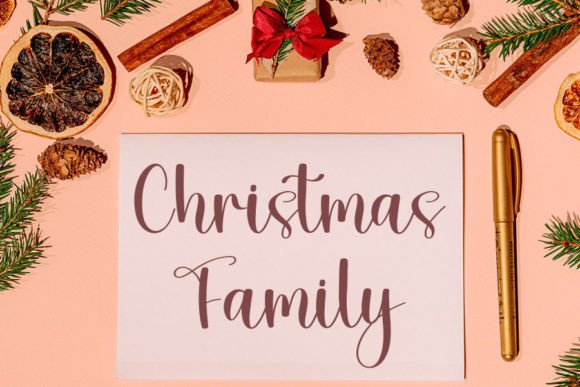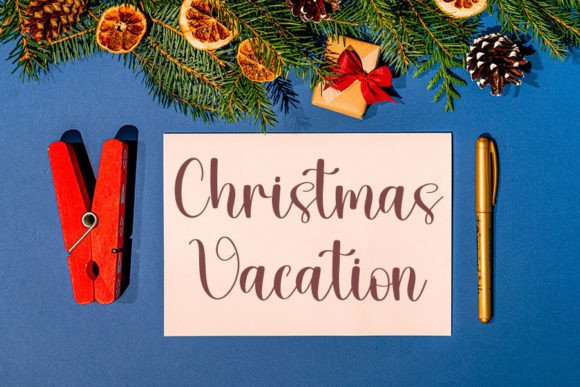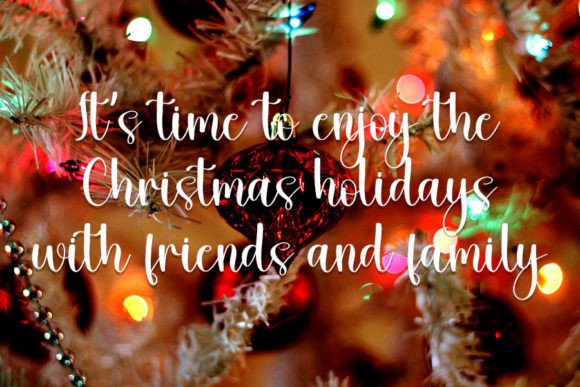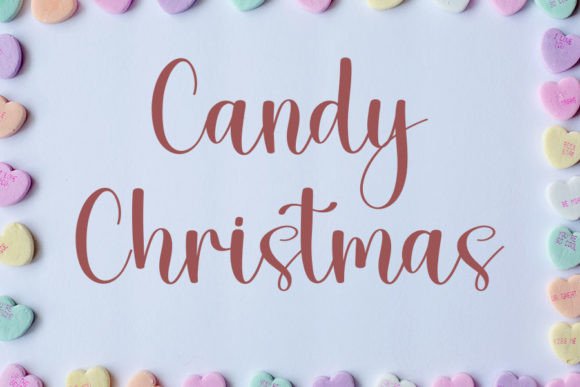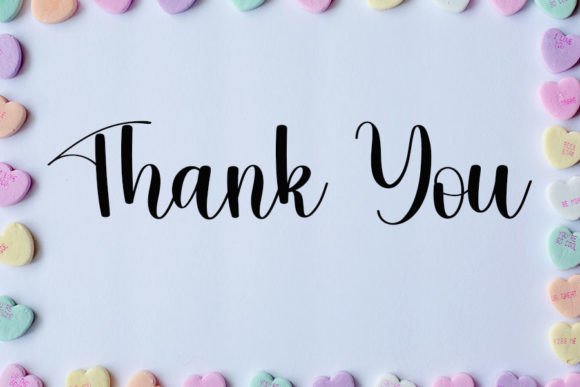
Deck the Halls with a Touch of Whimsy: The Christmas Font
Have you ever found yourself rummaging through your craft supplies, searching for the perfect font to match the festive spirit of the season? Maybe you’re designing a holiday card, creating a gift tag, or planning a festive presentation. Whatever your creative pursuit, I’m sure you’ll agree that the right font can make all the difference.
Enter the Christmas Font – a delightful, handwritten font that’s sure to become your new go-to for all things merry and bright. Whether you’re a seasoned designer or a crafty enthusiast, this font is a valuable addition to your toolkit. With its playful, approachable style, the Christmas Font is perfect for adding a touch of whimsy to your designs, making it a must-have for any designer looking to add some holiday cheer to their work.
Key Features of Christmas Font
- Font Family: A festive and playful font family designed specifically for the holiday season, perfect for creating a cheerful and inviting atmosphere.
- Unique Characteristics: Features a distinctive, cursive-style design with ornaments and decorations, adding a touch of whimsy and festivity to any text.
Christmas Font Review
I recently had the chance to work with “Christmas Font”, and I must say, it’s a mixed bag. Here are my thoughts.
- The font is very festive and perfect for holiday-themed projects.
- The included icons and decorations are a nice touch and can be used to add some extra flair to your designs.
- The font is highly customizable, allowing you to adjust the size, color, and style to suit your needs.
- The font can be a bit too over-the-top for some designs, and the included icons can be overwhelming.
- The font doesn’t come with a lot of variations, which can make it feel a bit limited for more complex projects.
- The font may not be suitable for professional or formal projects, as it’s quite playful and festive.
Overall, I’d say “Christmas Font” is a fun and playful font that’s perfect for holiday-themed projects. However, it may not be the best choice for more complex or formal projects. If you’re looking for a fun and festive font, this might be a good choice. But if you need something more professional, you might want to look elsewhere.
Some tips for getting the most out of Christmas font include:
– Using it for holiday-themed graphics and designs.
– Pairing it with festive colors like red and green.
– Using it for titles, headings, and body text.
– Experimenting with different font sizes and styles to add visual interest.
Alternatives to Christmas Font for Designers
Copperplate Script
Copperplate Script is a elegant, cursive font that can evoke a sense of luxury and sophistication. It’s perfect for designers who want to add a touch of classic elegance to their Christmas designs, without being too on-the-nose. Copperplate Script is more versatile than Christmas Font, as it can be used in a variety of contexts, from invitations to packaging.
Comparison: Copperplate Script is more refined and sophisticated than Christmas Font, making it a better choice for high-end designs. However, it may not be as attention-grabbing or festive as Christmas Font.
Playfair Display is an elegant, high-end font that can add a touch of luxury to Christmas designs. It’s perfect for designers who want to create a sense of opulence and sophistication. Playfair Display is more ornate than Christmas Font, making it a better choice for designs that require a lot of visual interest.